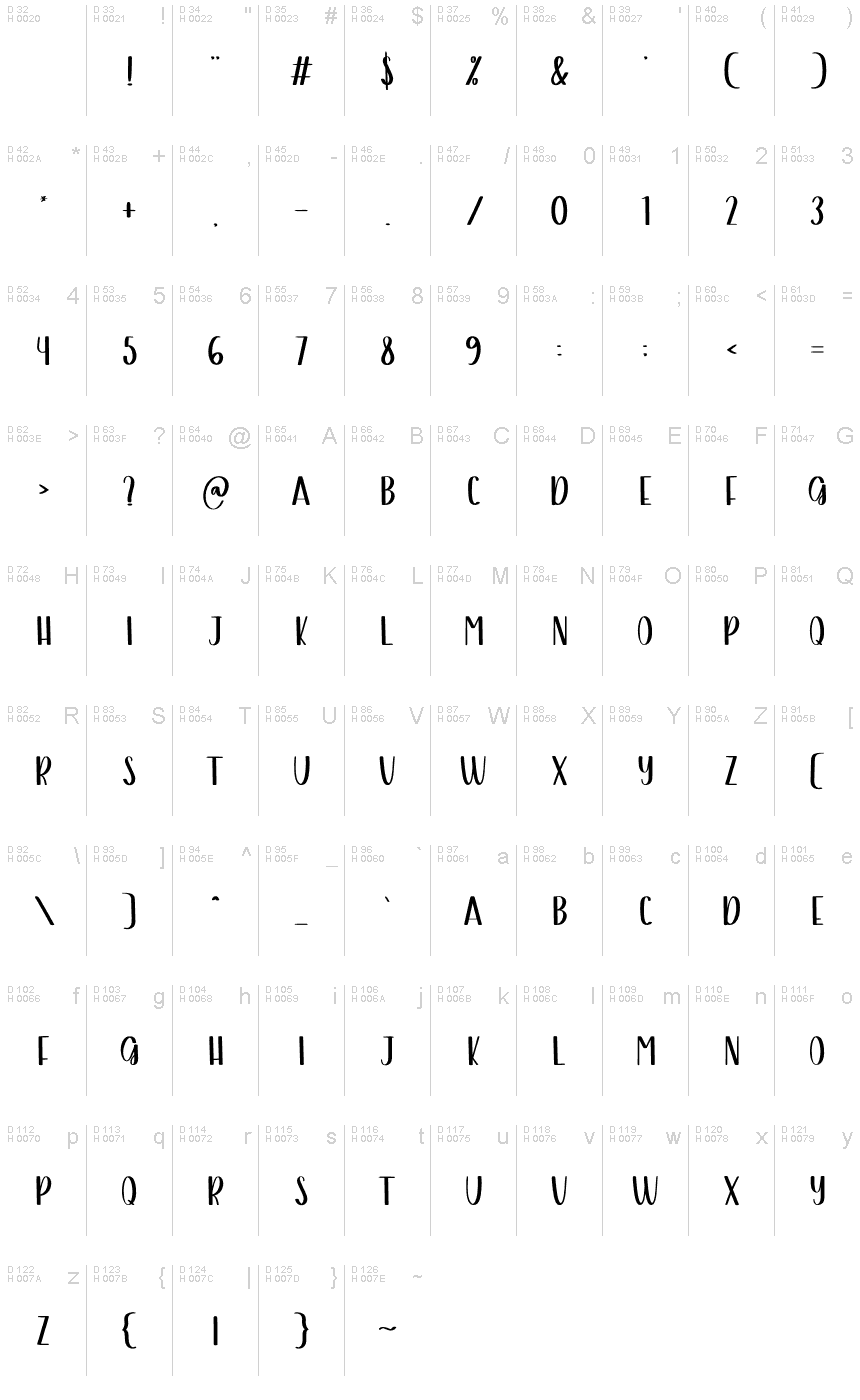
Winter School
Winter School, designed by Scratchones, stands out as a distinctively condensed handwritten font that captures the essence of personal touch combined with space-efficient design. Its slender yet flowing characters exude a sense of elegance and sophistication, making it an excellent choice for designers seeking to infuse a humanistic element into their work without sacrificing readability.
The aesthetic appeal of Winter School lies in its balance between the intimate feel of handwritten script and the modern necessity for clean, streamlined typography. Each letterform is crafted with careful attention to detail, ensuring that the overall look remains cohesive and harmonious.
Perfect for creative projects that require a blend of warmth and professionalism, Winter School shines in applications such as branding materials, personalized invitations, or editorial layouts where space is at a premium but style is paramount. Its versatility allows it to adapt seamlessly across various mediums while maintaining its unique character.
Embrace the charm of Winter School for your next project and let its stylized yet practical nature elevate your design narrative.